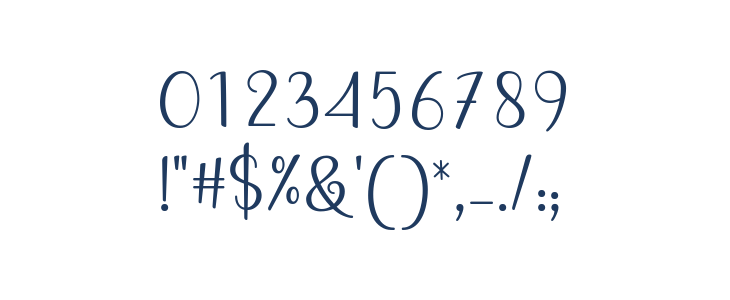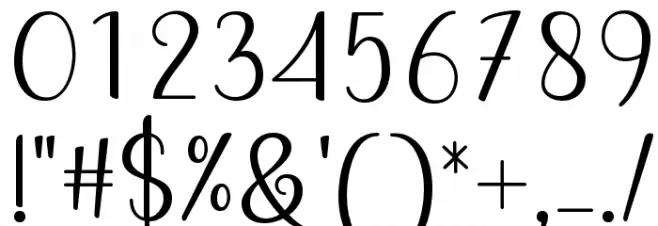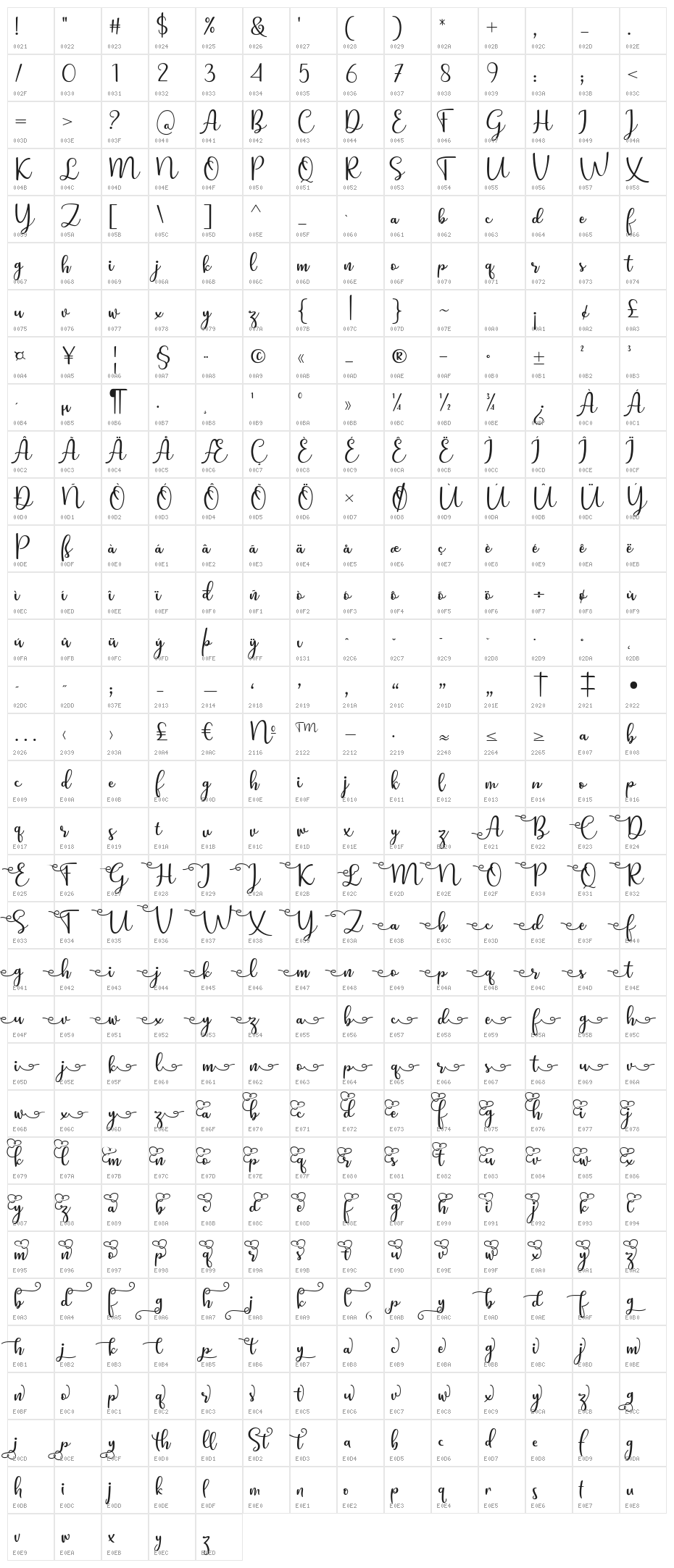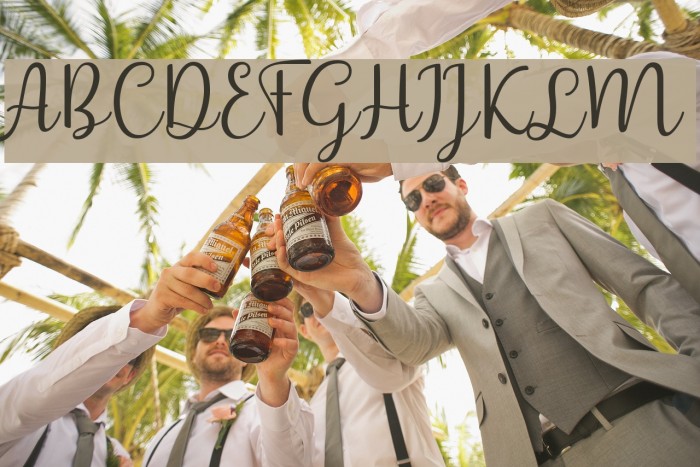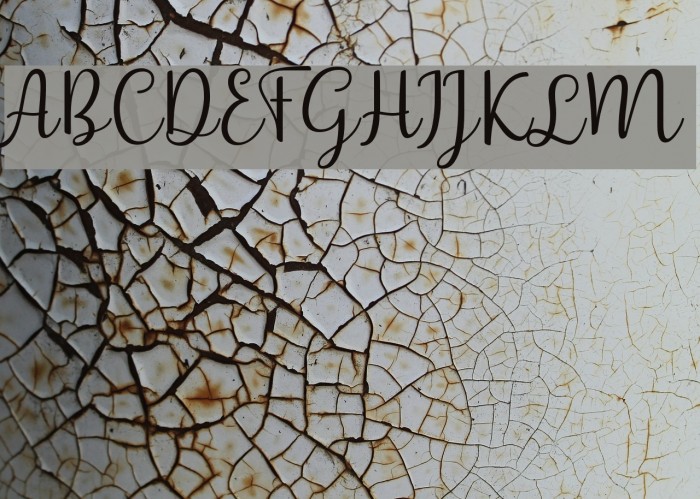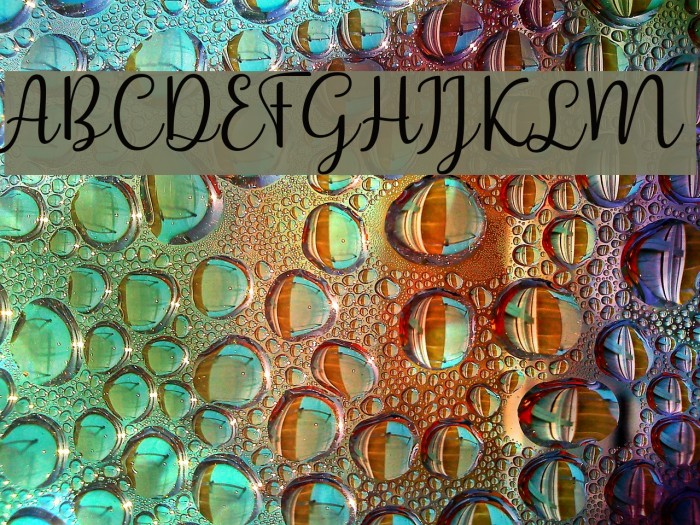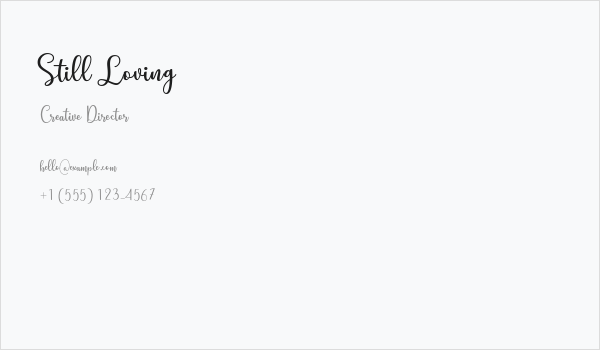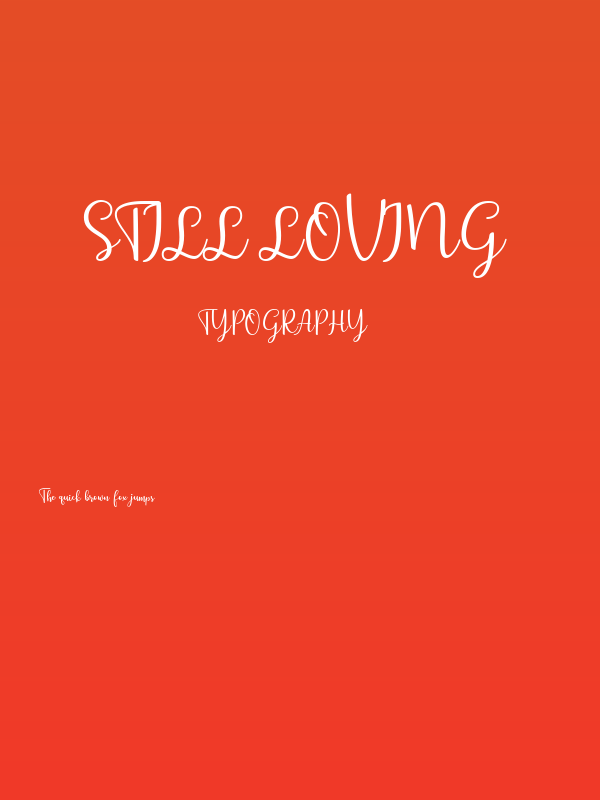
Still Loving Font
Still Loving Description
This font features a charming and elegant script style, characterized by flowing, cursive letters with a smooth and graceful appearance. The uppercase letters exhibit a sophisticated flair with gentle curves and loops, while the lowercase letters maintain a consistent and harmonious flow. The numerals are clear and legible, complementing the overall aesthetic. Special characters are thoughtfully designed to match the script's elegance, making them suitable for decorative purposes. The font's style is both modern and timeless, offering versatility for various design projects.
Overall StyleElegant
Use CaseLogos, Invitations, Decorative text
Proposed ProjectsIdeal for wedding invitations, greeting cards, branding, and elegant logo designs.